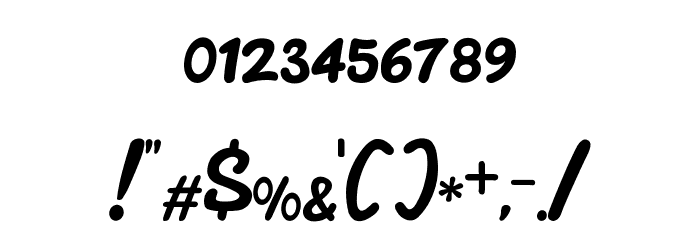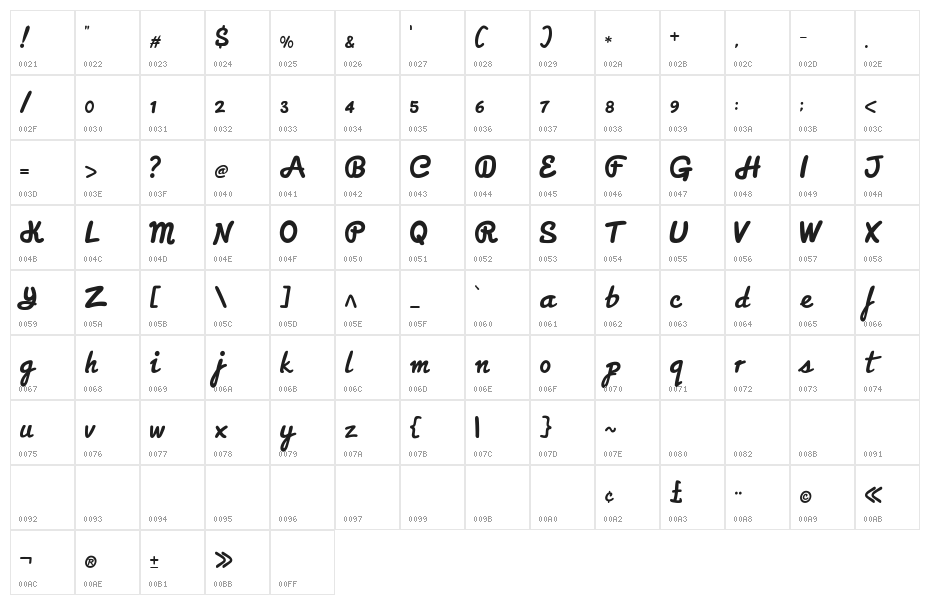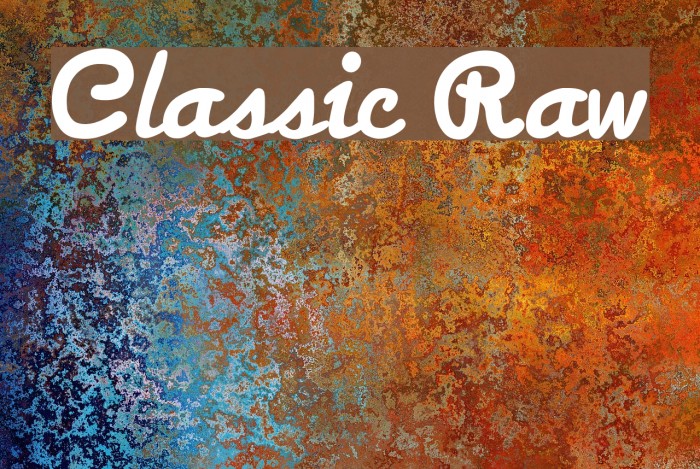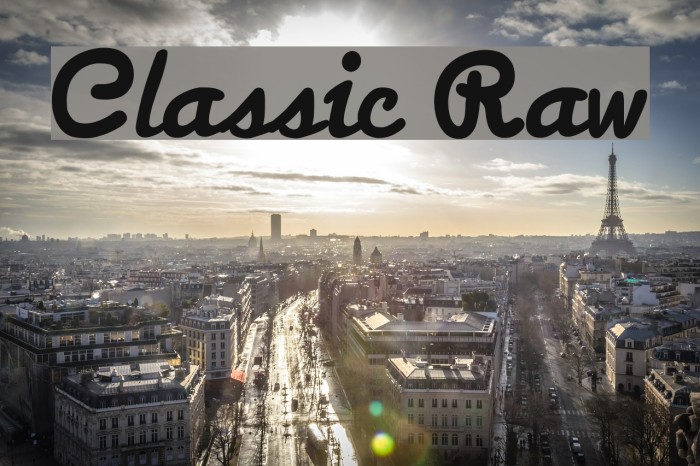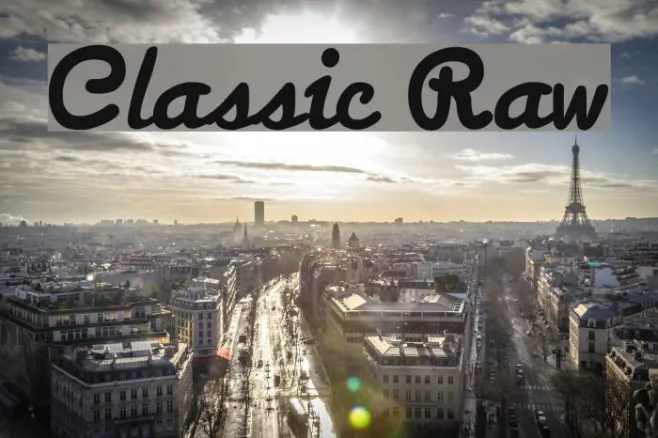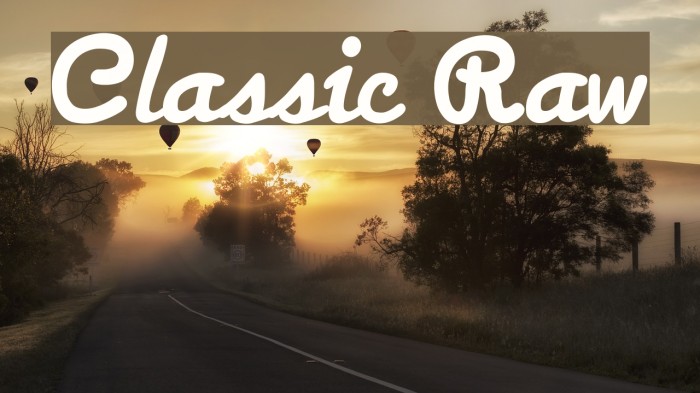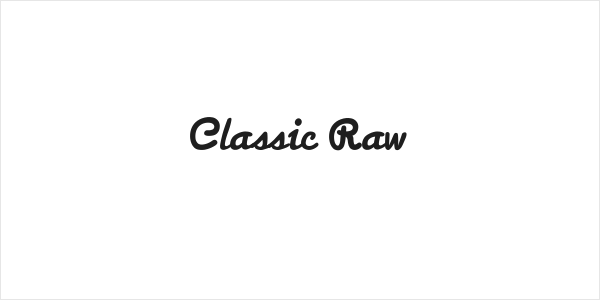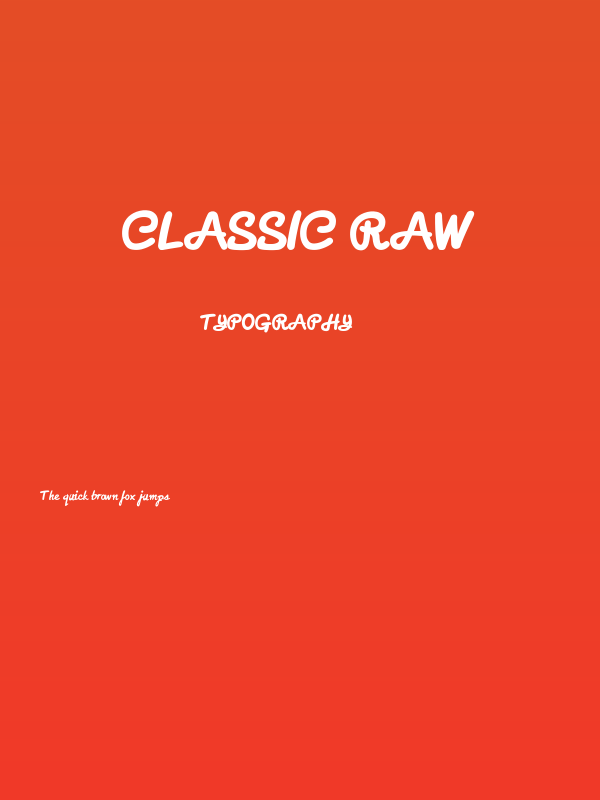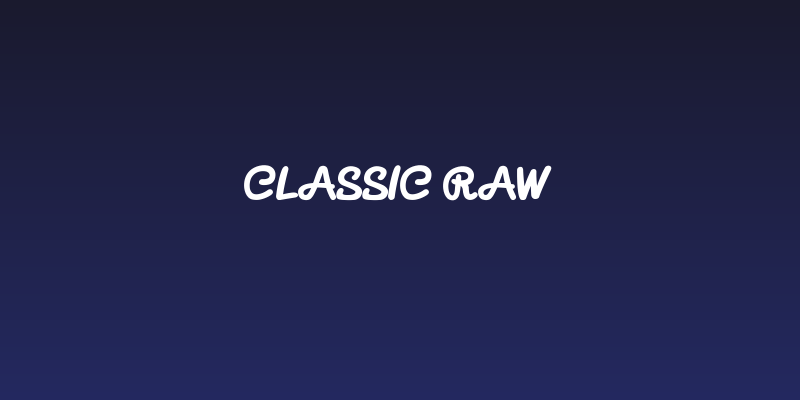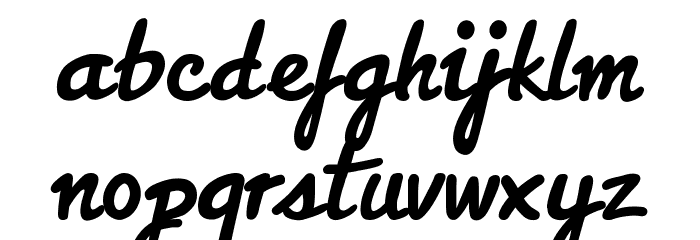
Classic Raw Font
Classic Raw Description
This font features a bold, cursive style with a playful and dynamic appearance. The uppercase letters are characterized by their flowing, interconnected strokes, giving a sense of movement and fluidity. The lowercase letters maintain a consistent style, with rounded edges and a slight slant, enhancing the handwritten feel. The numerals and special characters are designed to match the overall aesthetic, providing a cohesive look across all elements. This font's boldness and unique style make it stand out, suitable for projects that require a touch of elegance and creativity.
| Proposed Projects | Ideal for branding, invitations, greeting cards, and creative posters. |